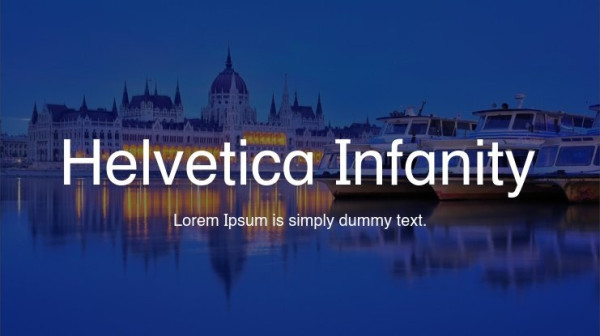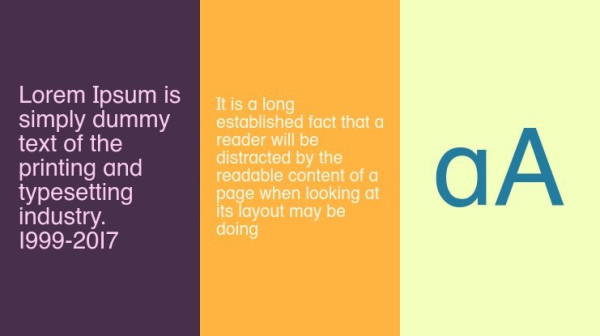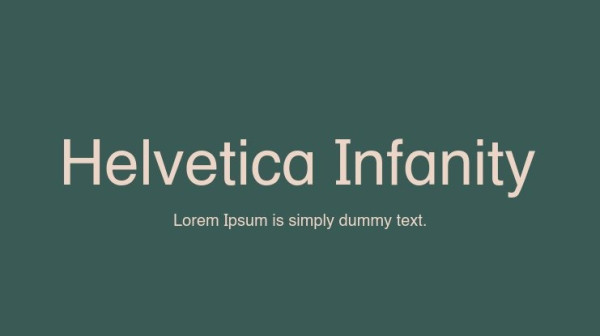
Helvetica Infanity Font, is a sans serif stunning when combined or separately. This sans serif font style is legible and stunningly designed.
Helvetica Infanity Font